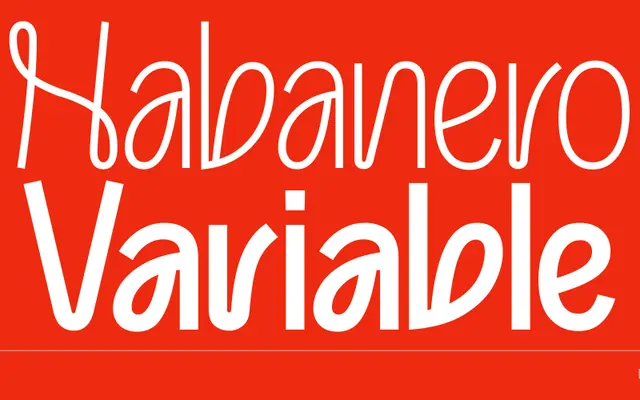
Habanero
A free variable display typeface by Jude Grover, blending art nouveau and calligraphic forms across five weights with OpenType alternates.
Designed by Jude Grover while based in London, Habanero draws on art nouveau and calligraphic influences to produce a display face with an unpredictable, expressive quality. Five weights run from Thin to Black, all available as a variable font, with OpenType features including standard and discretionary ligatures and a stylistic set affecting A, L, I, R and M. Broad Latin language support covers over a hundred languages, and the full family is offered free to download.
The foundry describes it as an experimental display typeface combining art nouveau and calligraphic influences with playful unpredictability, placing it firmly in the decorative display category.